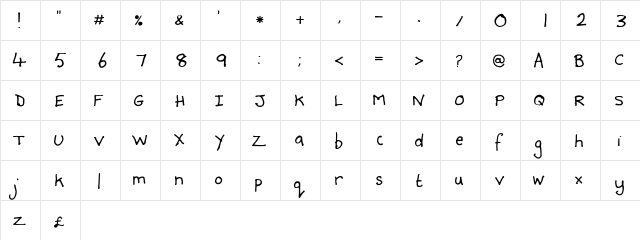
Debbie Normal Font Preview
Debbie Normal
Debbie Normal Font Details
Design Context for Debbie Typeface
Debbie offers clean, dependable letterforms without strong stylistic allegiance, making it a practical choice for designers who need flexibility.